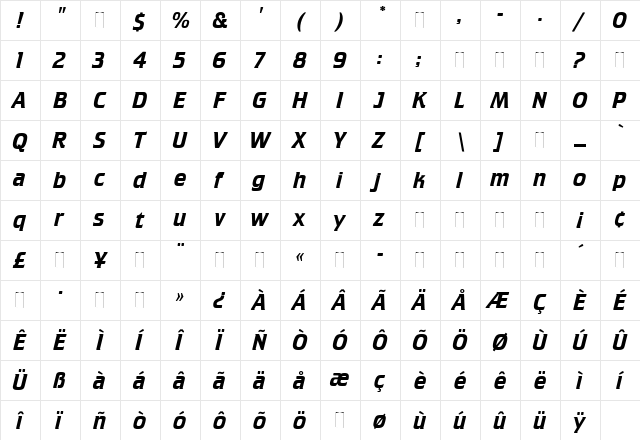
Crillee Italic Regular
Design Context for Crillee Italic Typeface
Crillee Italic is a composed and adaptable typeface that performs quietly and consistently across a wide range of design contexts. Its italic angle brings a sense of urgency and motion to the letterforms.
Pro Tip: Try Crillee Italic for annotation and caption copy alongside an upright companion — the contrast in angle creates a dynamic but ordered typographic system.